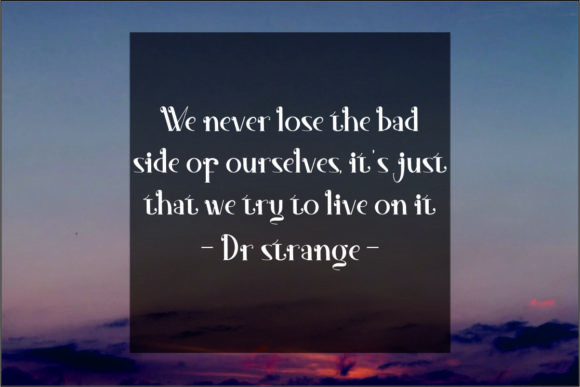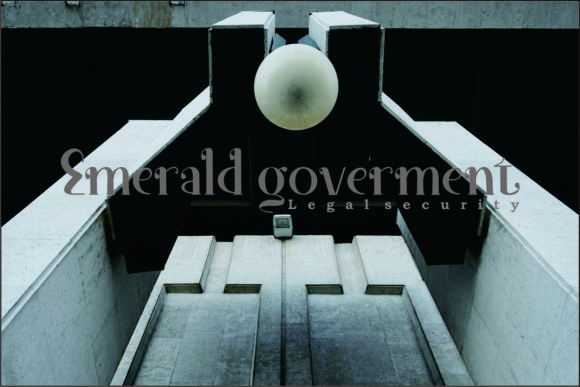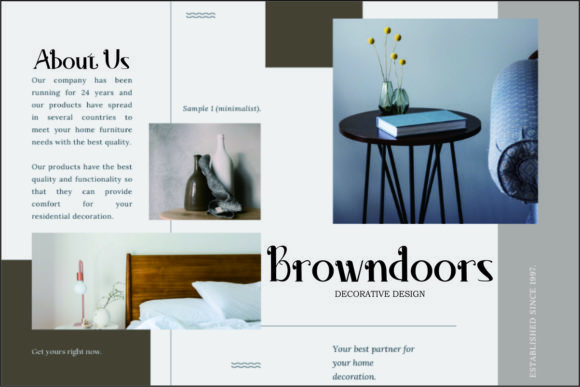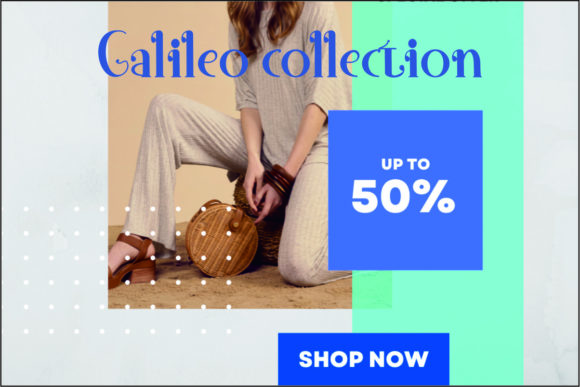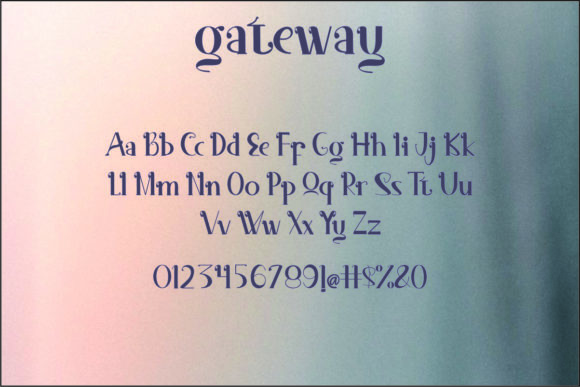
Introducing Gateway Font: Elevate Your Designs with Elegance and Modernity
Are you on the hunt for a font that exudes sophistication, elegance, and a touch of modern flair? Look no further than Gateway Font, a stunning serif font that is sure to elevate your designs to new heights. With its unique blend of classic and contemporary elements, Gateway Font is the perfect choice for designers and crafters looking to add a touch of refinement to their projects.
What is Gateway Font?
Gateway Font is a beautifully crafted serif font that boasts an elegant and stylish aesthetic. Its sleek lines, refined curves, and minimalist vibe make it an ideal choice for a wide range of design applications. Whether you’re working on a logo, headline, or body text, Gateway Font is sure to impress with its crisp and clean appearance.
Key Features of Gateway Font
- Elegant and Stylish: Gateway Font features a sophisticated and refined design that is sure to add a touch of elegance to your projects.
- Serif Font: With its classic serif design, Gateway Font is perfect for creating visually appealing headings, titles, and body text.
- Minimalist and Modern: Gateway Font’s clean lines and minimalist aesthetic give it a modern and fresh feel that’s perfect for contemporary designs.
- Versatile: Gateway Font is suitable for a wide range of design applications, including logotype, headline font, corporate identity, brand identity, apparel industry, poster, music, movie, game, magazine, book, comic, cartoon, YouTube, Instagram, website, and more.
Use Cases for Gateway Font
Gateway Font is an incredibly versatile font that can be used in a variety of design projects. Here are some examples of how you can use Gateway Font to elevate your designs:
- Logotype and Branding: Use Gateway Font to create a sophisticated and memorable logo for your brand.
- Headlines and Titles: Gateway Font is perfect for creating eye-catching headlines and titles for your blog posts, articles, and other written content.
- Corporate Identity: Use Gateway Font to create a professional and cohesive visual identity for your company.
- Apparel Industry: Gateway Font is a great choice for designing t-shirts, hoodies, and other apparel items.
- Poster and Print Design: Use Gateway Font to create stunning posters, flyers, and other print materials.
- Digital Media: Gateway Font is perfect for creating engaging and visually appealing content for YouTube, Instagram, and other digital platforms.
Why Choose Gateway Font?
With so many fonts to choose from, why should you choose Gateway Font for your design projects? Here are just a few reasons:
- Unique and Memorable: Gateway Font’s unique design makes it stand out from other fonts, ensuring that your designs will be remembered.
- Elegant and Sophisticated: Gateway Font’s elegant and sophisticated aesthetic makes it perfect for designs that require a touch of refinement.
- Versatile: Gateway Font can be used in a wide range of design applications, making it a great addition to your font library.
- Easy to Read: Gateway Font is incredibly easy to read, making it perfect for body text and other written content.
In conclusion, Gateway Font is an exceptional serif font that offers a unique blend of elegance, sophistication, and modernity. Its versatility, readability, and stunning design make it an ideal choice for designers and crafters looking to elevate their designs. Whether you’re working on a logo, headline, or body text, Gateway Font is sure to impress. So why wait? Download Gateway Font today and take your designs to new heights!